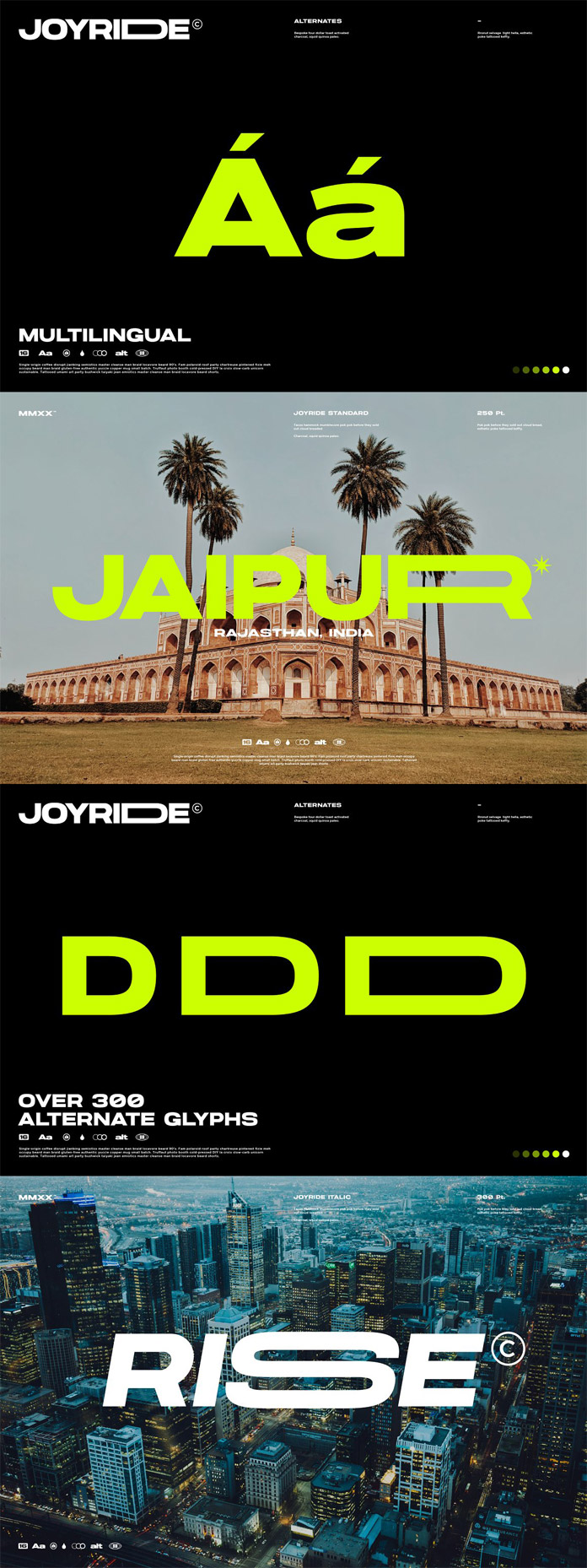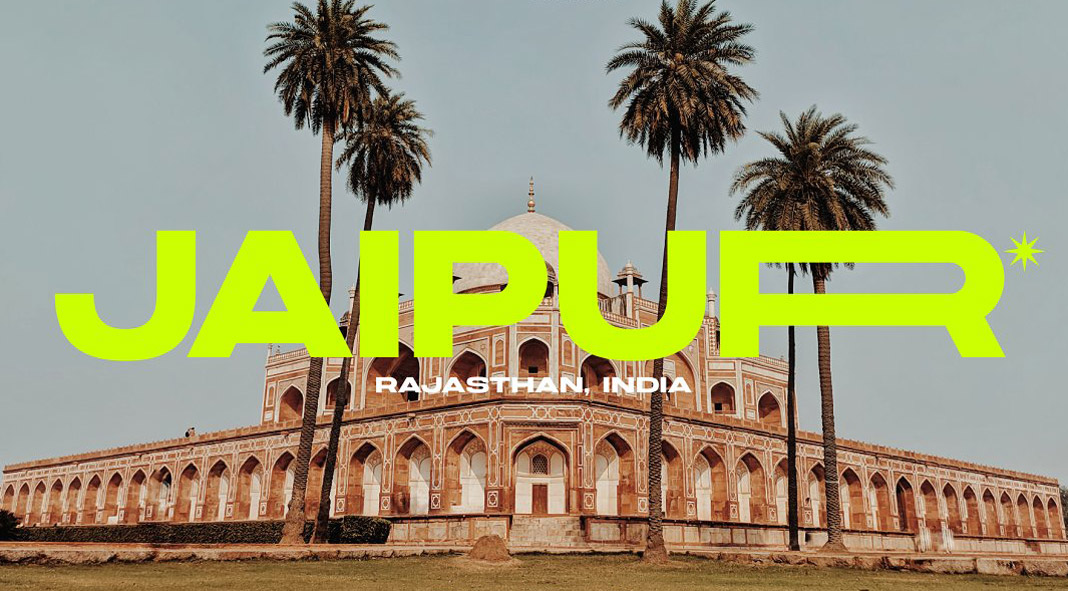
Say hello to Joyride, a trending extended typeface with extremely variable widths.
Created and published by the experienced design team of TypeJuice, Joyride is a sans-serif typeface with extended variable widths. The complete font family consists of 16 fonts including a great variety of weights and styles. This trending typeface is equipped with 300+ alternate glyphs with variable widths to give you all the creative freedom you need. With over 4000 glyphs in total including upper and lowercase letters, the Joyride font supports multiple languages. It is suitable for all kinds of trending designs ranging from print to web. Just click on the following link to learn more about this exceptional typeface.